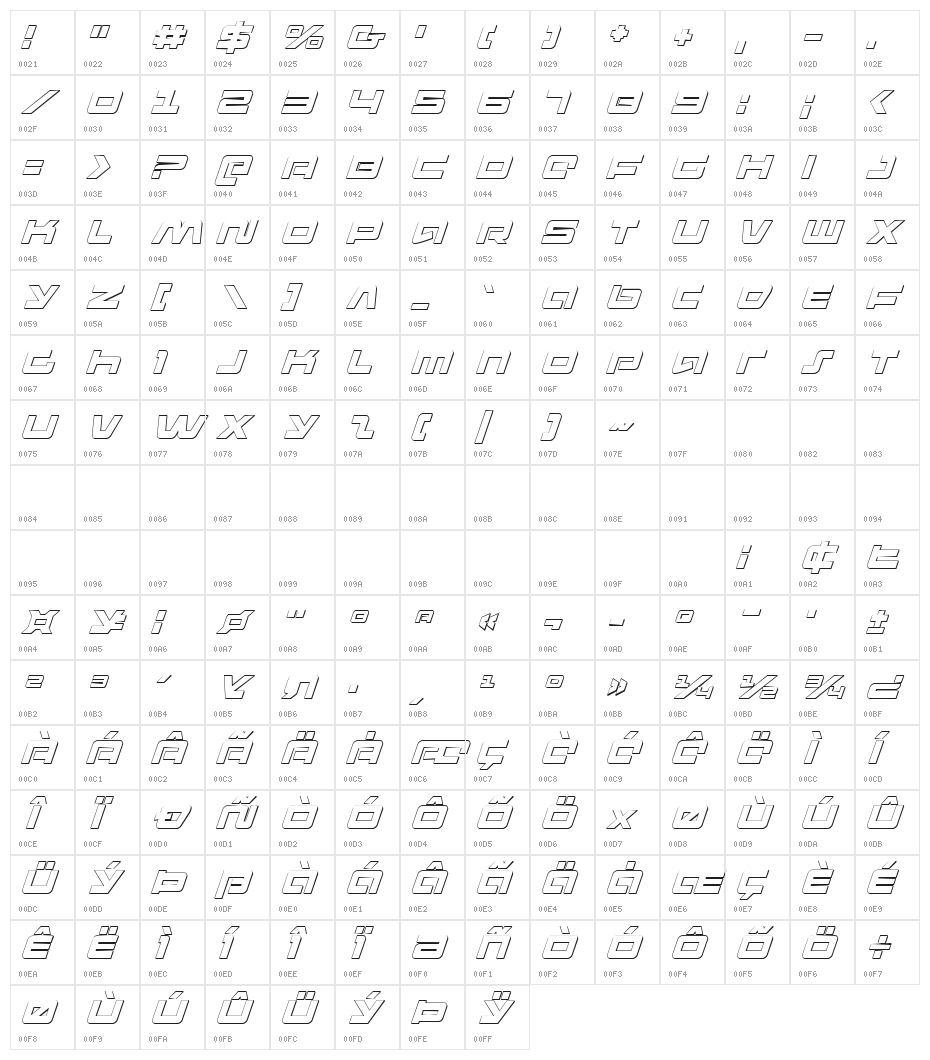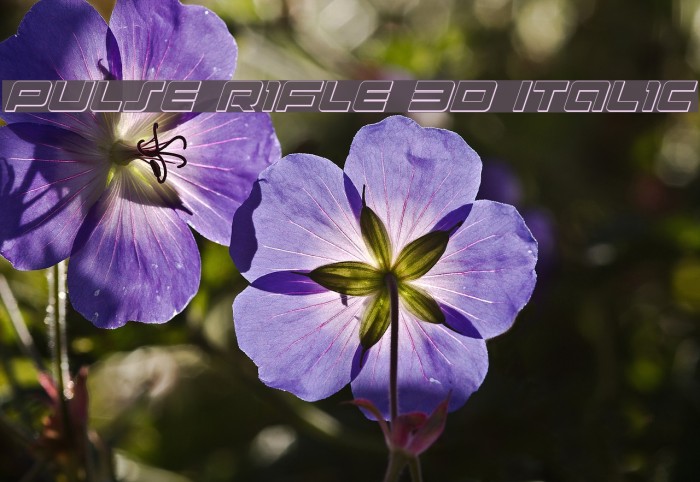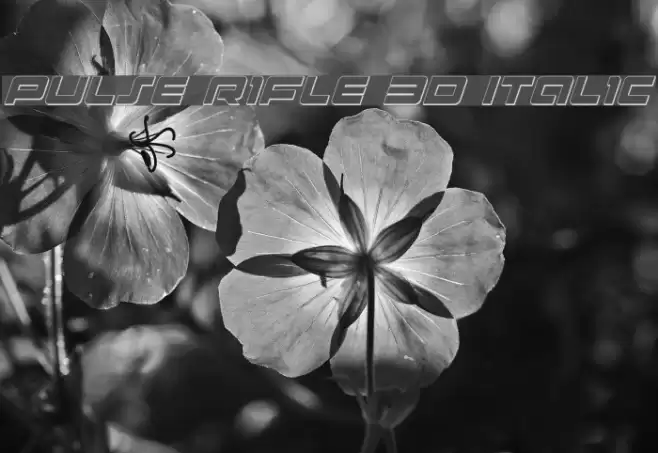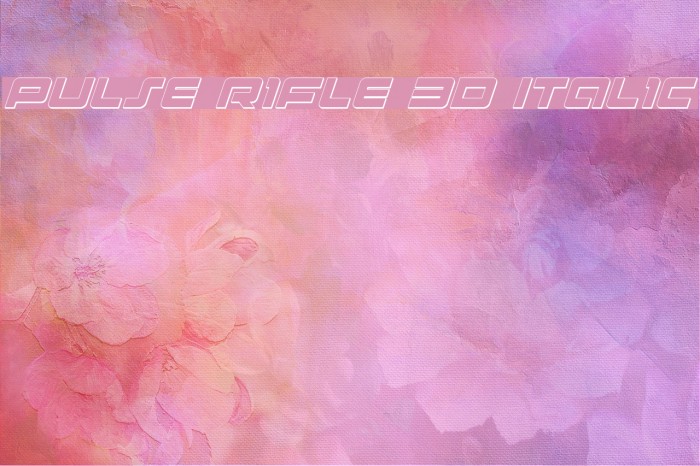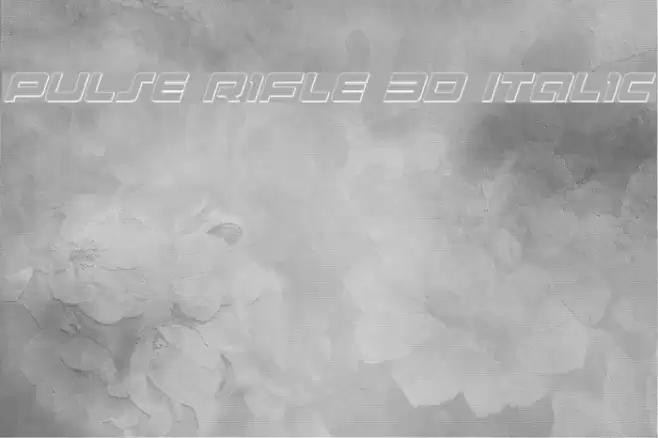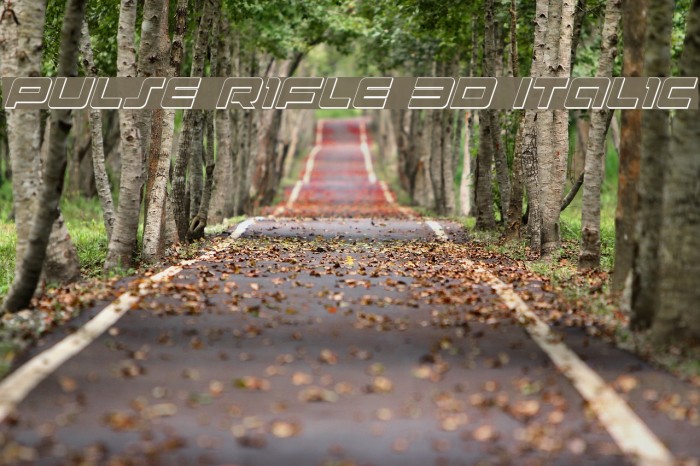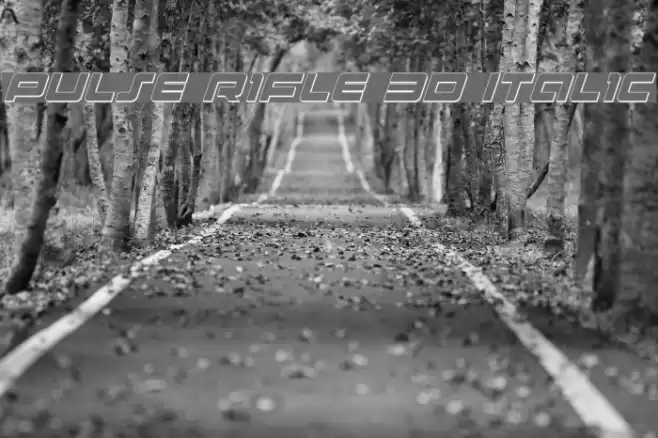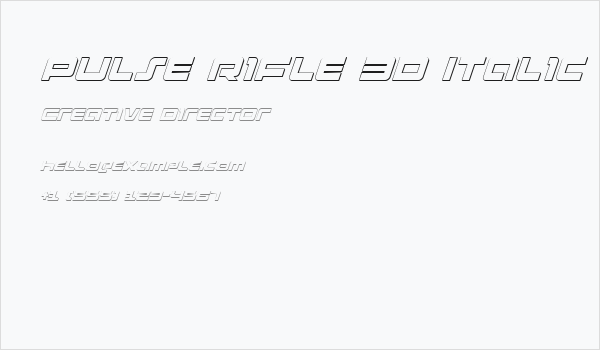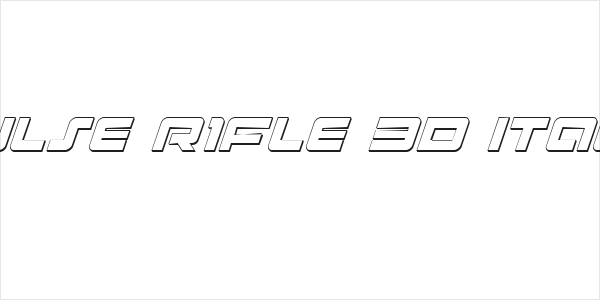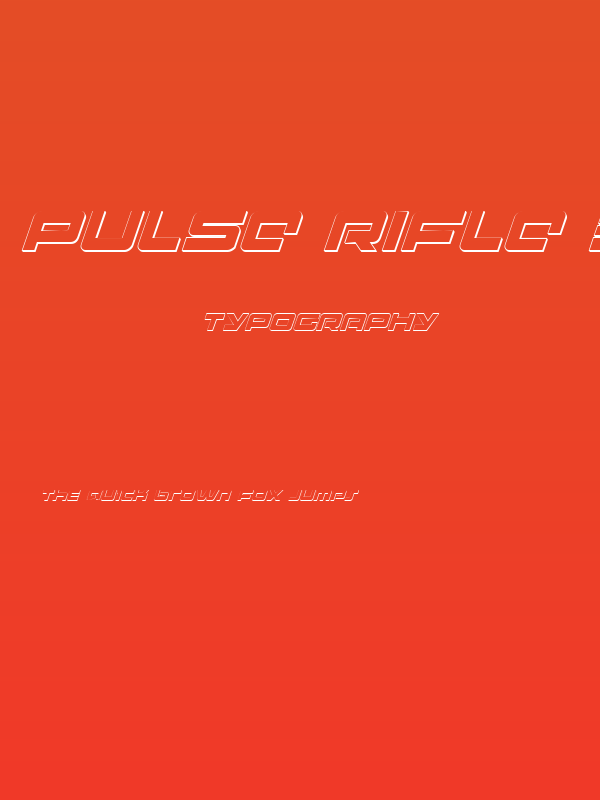
Pulse Rifle 3D Italic Font
Pulse Rifle 3D Italic Description
This font features a futuristic, 3D italic style with a distinct geometric structure. The characters are outlined, giving them a hollow appearance that enhances their modern and dynamic look. The angular design and slanted orientation suggest movement and speed, making it ideal for projects that require a sense of forward momentum. The uppercase and lowercase letters maintain a consistent style, with sharp edges and clean lines. Numbers and special characters are designed to match the overall aesthetic, ensuring uniformity across all text elements.
Proposed ProjectsIdeal for sci-fi themed designs, video game graphics, technology branding, and futuristic posters.